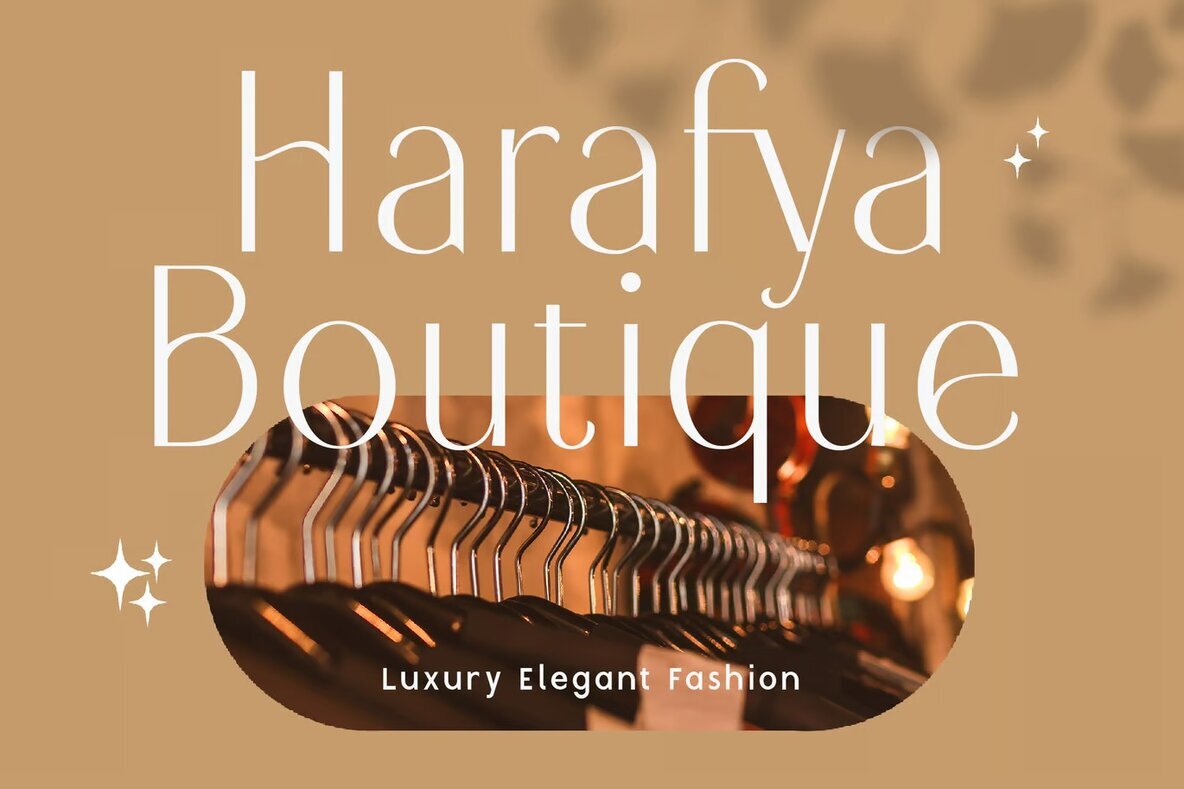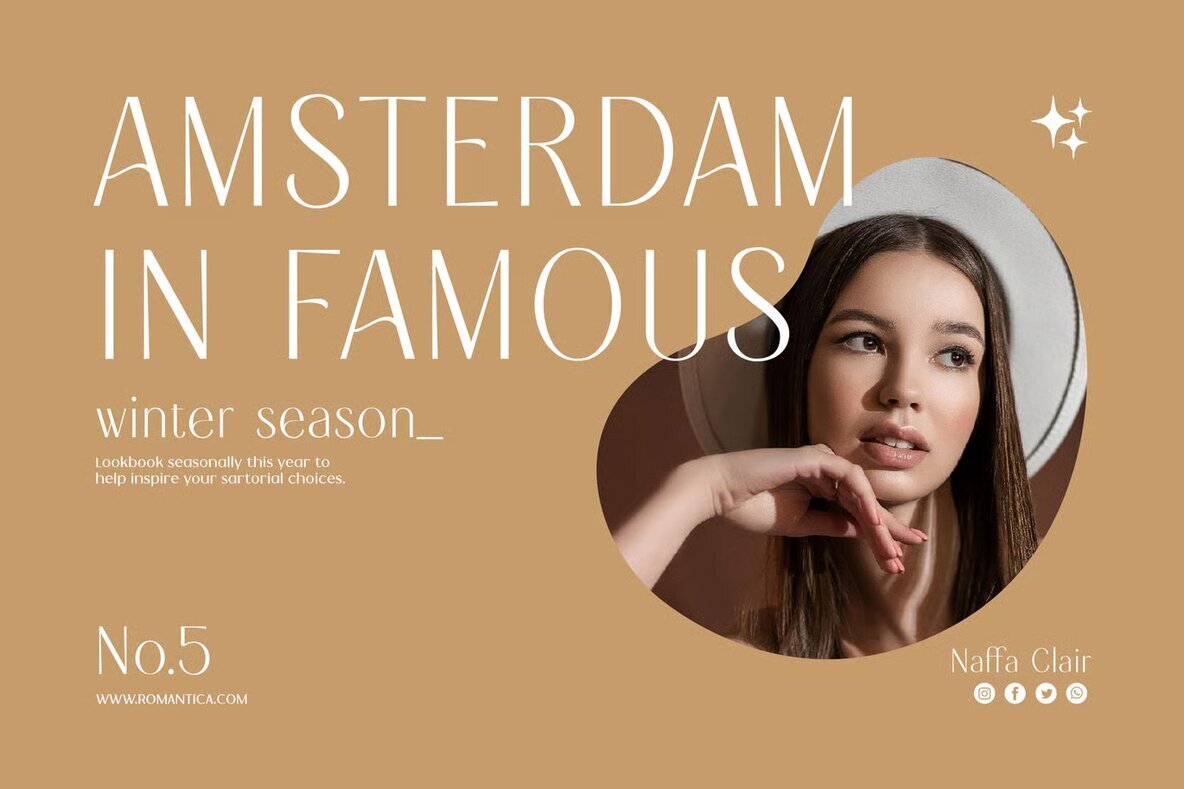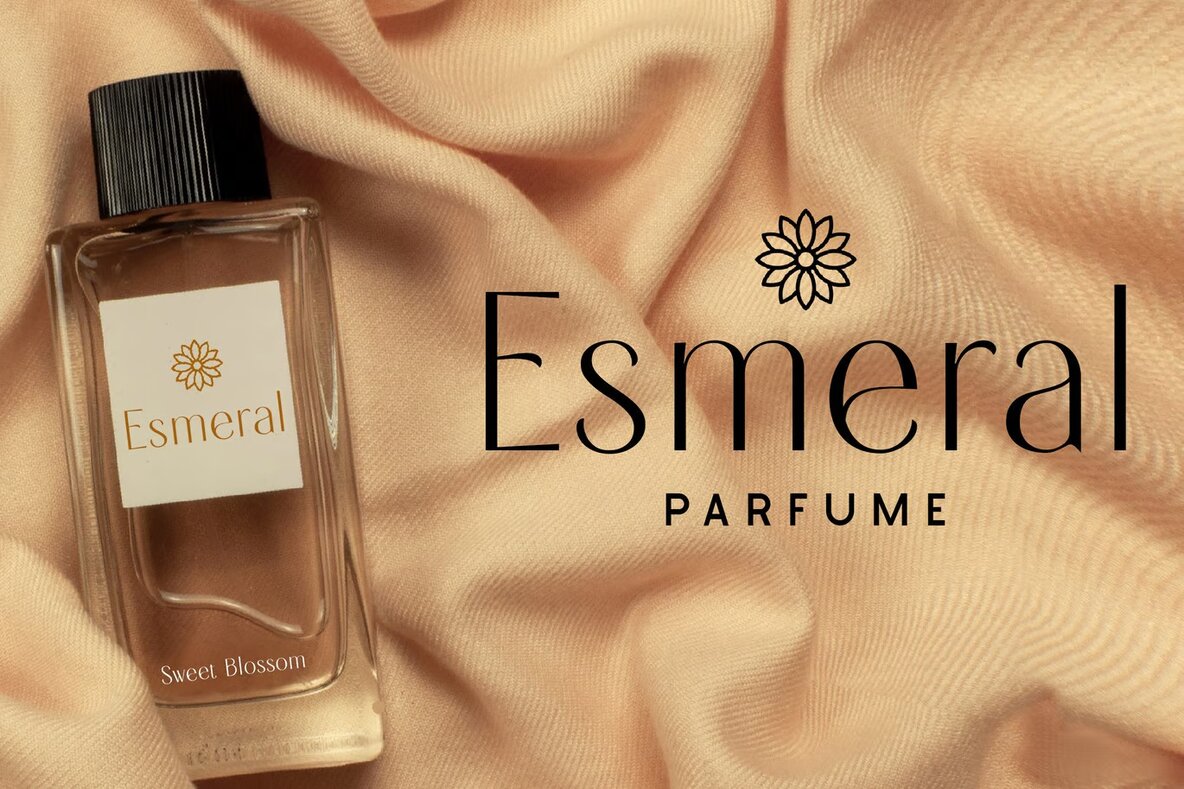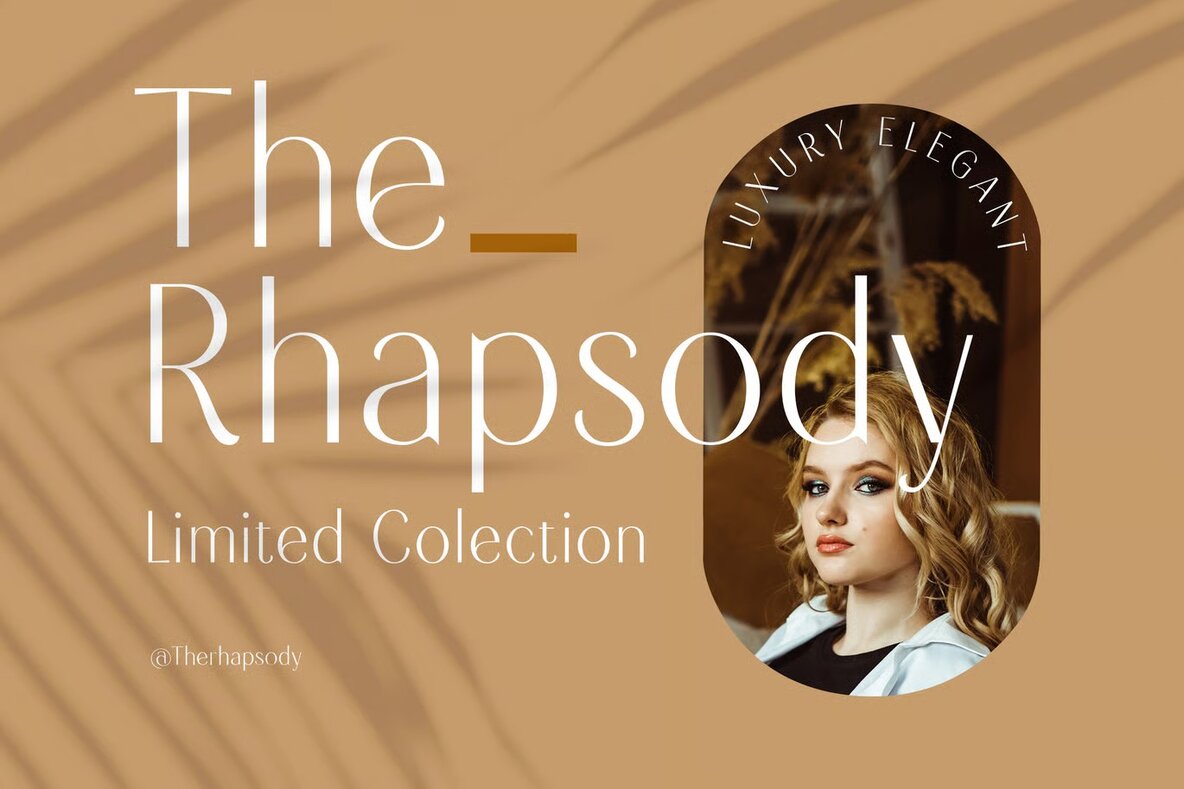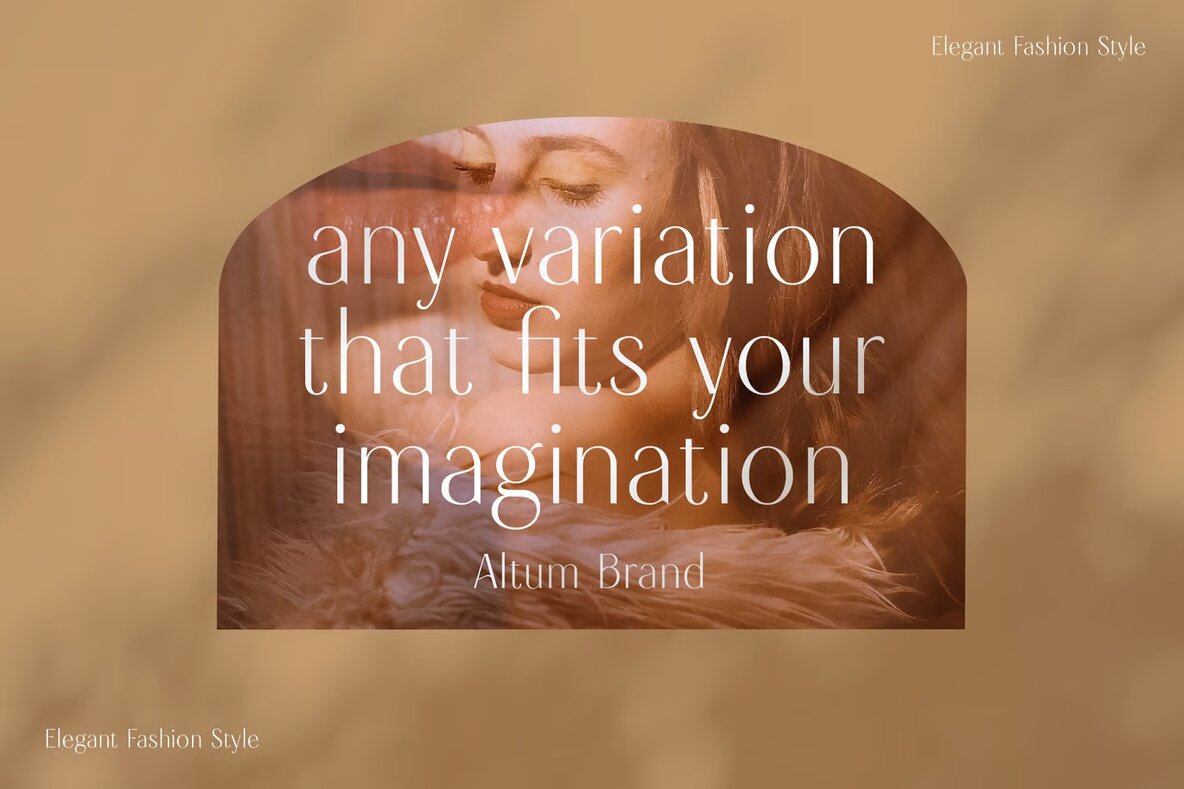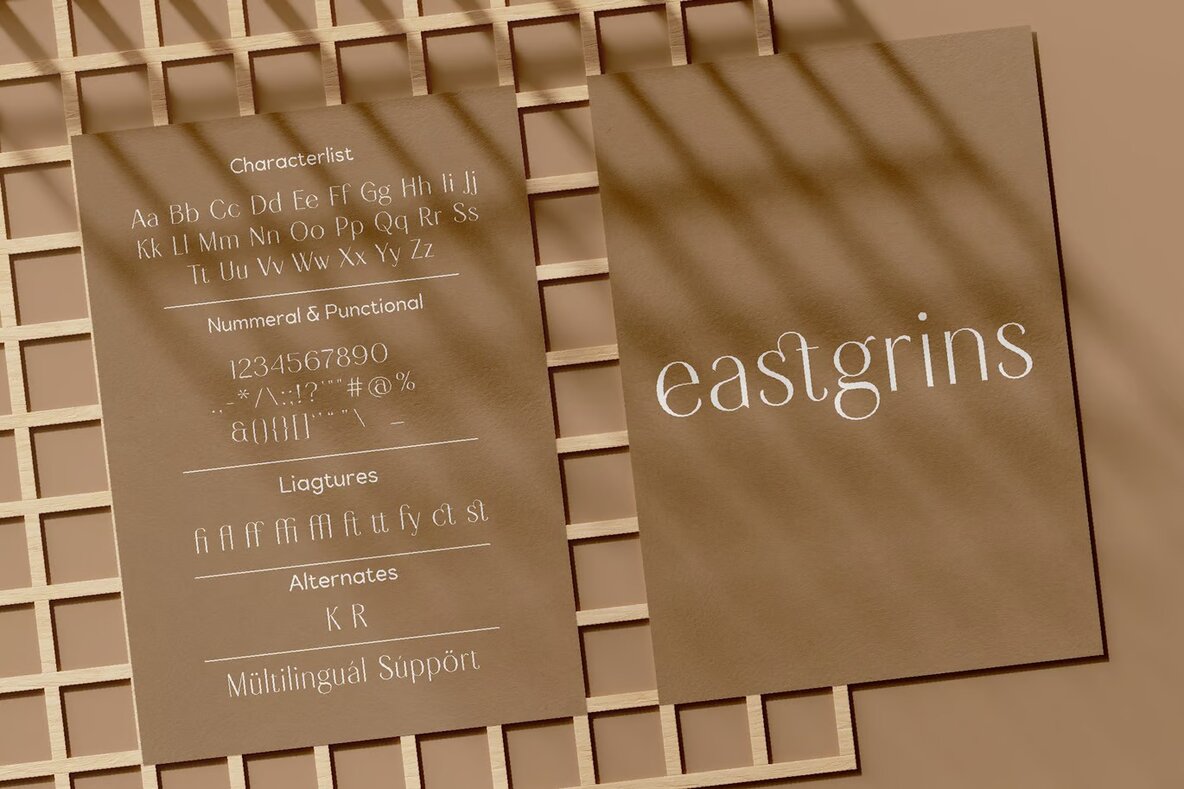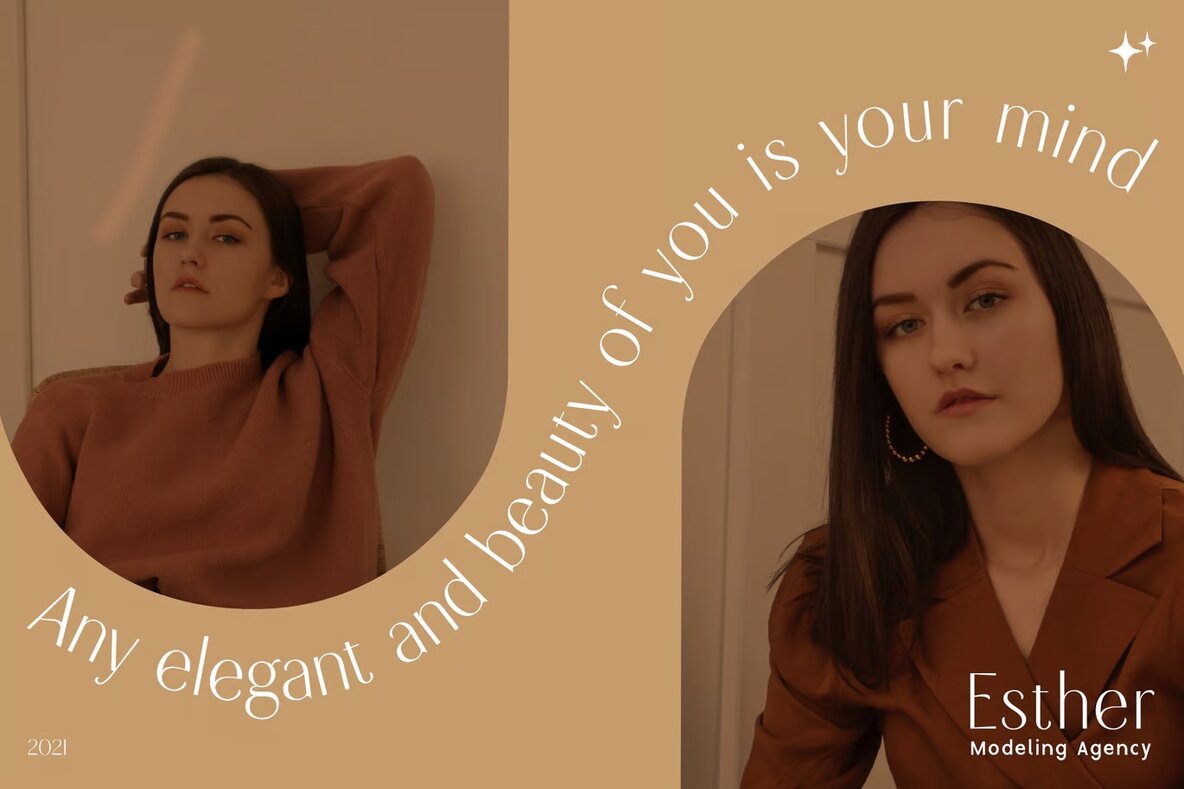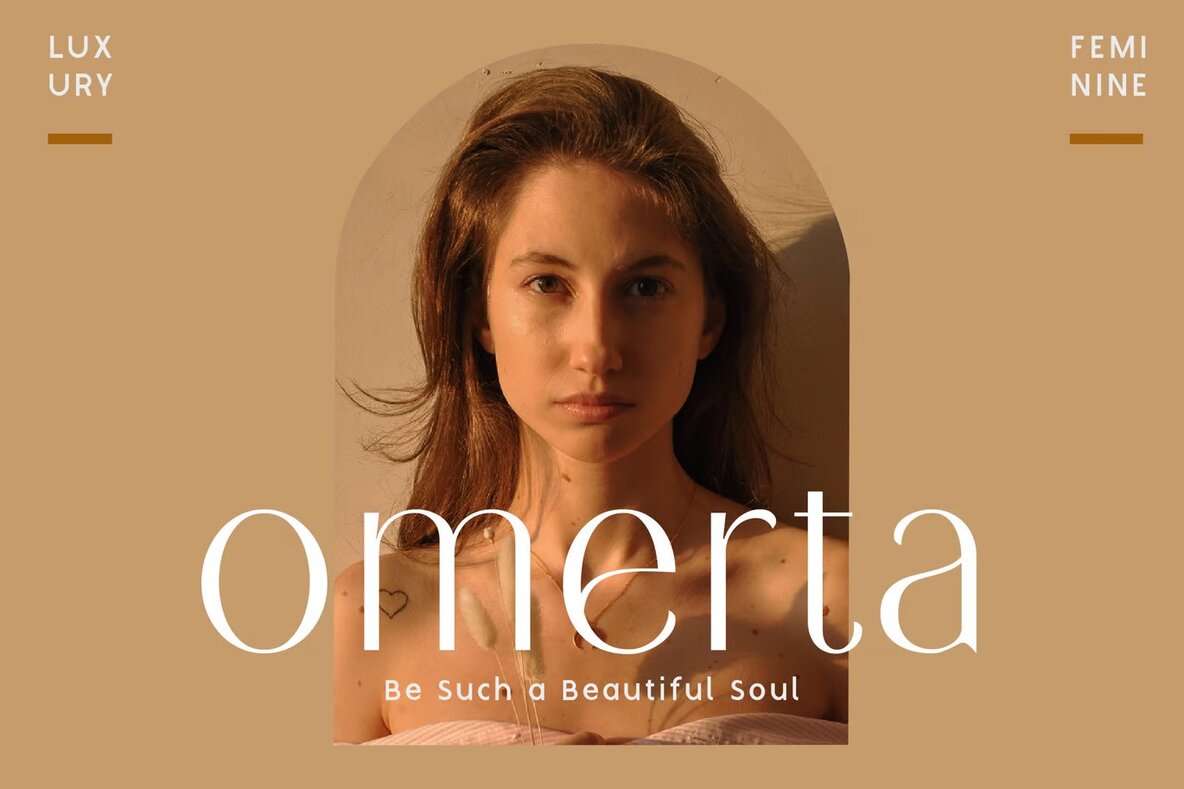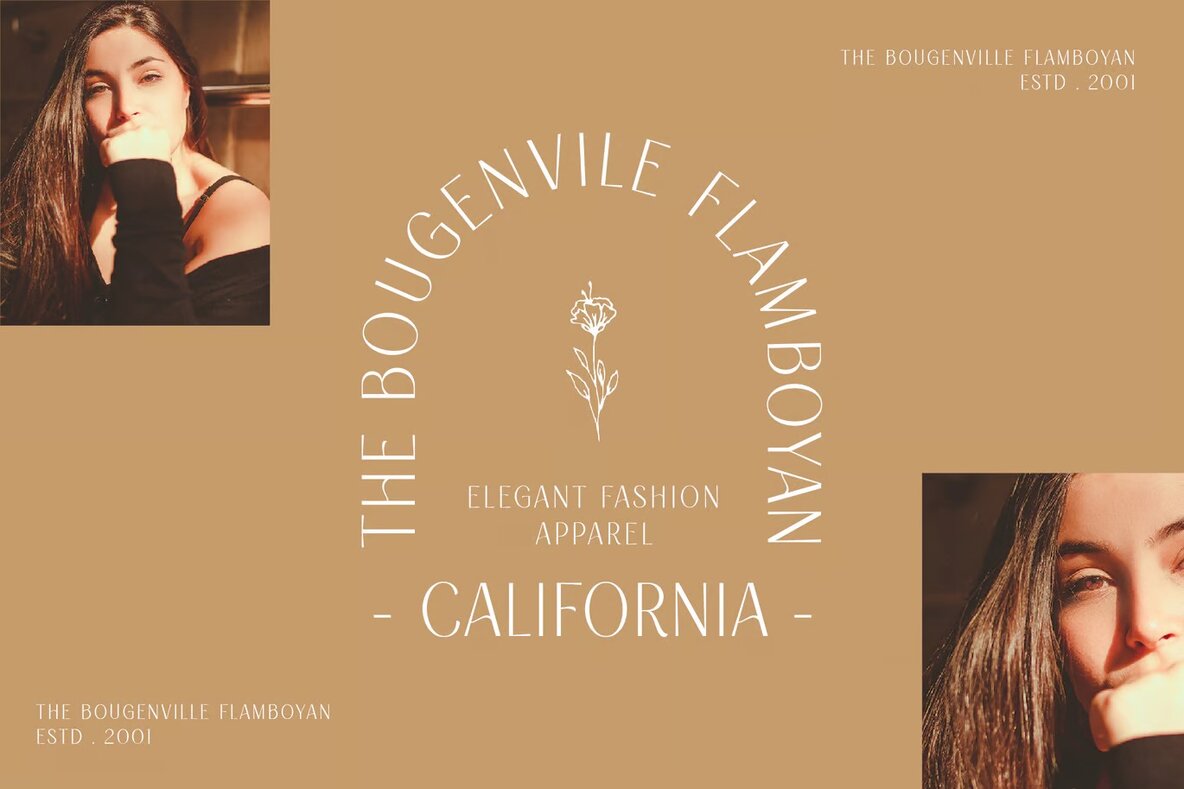
Eastgrins Font
Eastgrins Regular
This elegant serif font is characterized by its thin, high-contrast strokes and classic yet modern appeal. Ideal for projects that require a touch of sophistication and refinement, this font is perfect for fashion editorials, luxury brand identities, and stylish headings. Its delicate appearance makes it suitable for minimalist designs, adding a sleek and contemporary edge to any layout.